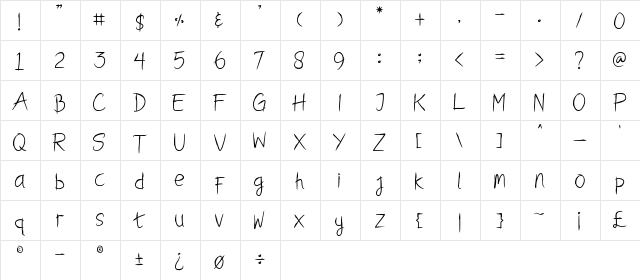
BLACK HORSE Regular
| Designer | Fachranheit 2019 |
Design Context for BLACK HORSE Typeface
BLACK HORSE is a composed and adaptable typeface that performs quietly and consistently across a wide range of design contexts.